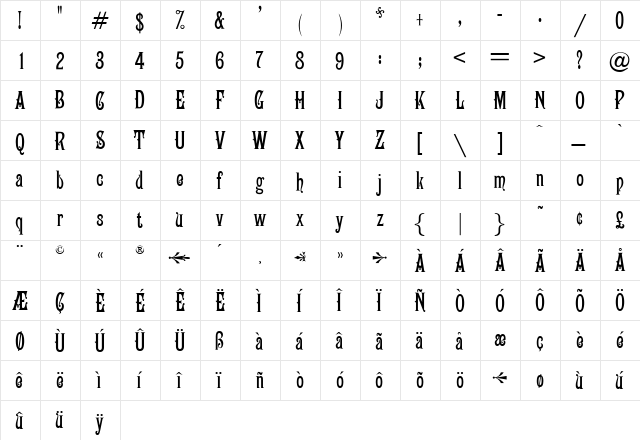
OPTICampanile Medium
Design Context for OPTICampanile Typeface
OPTICampanile is a composed and adaptable typeface that performs quietly and consistently across a wide range of design contexts.